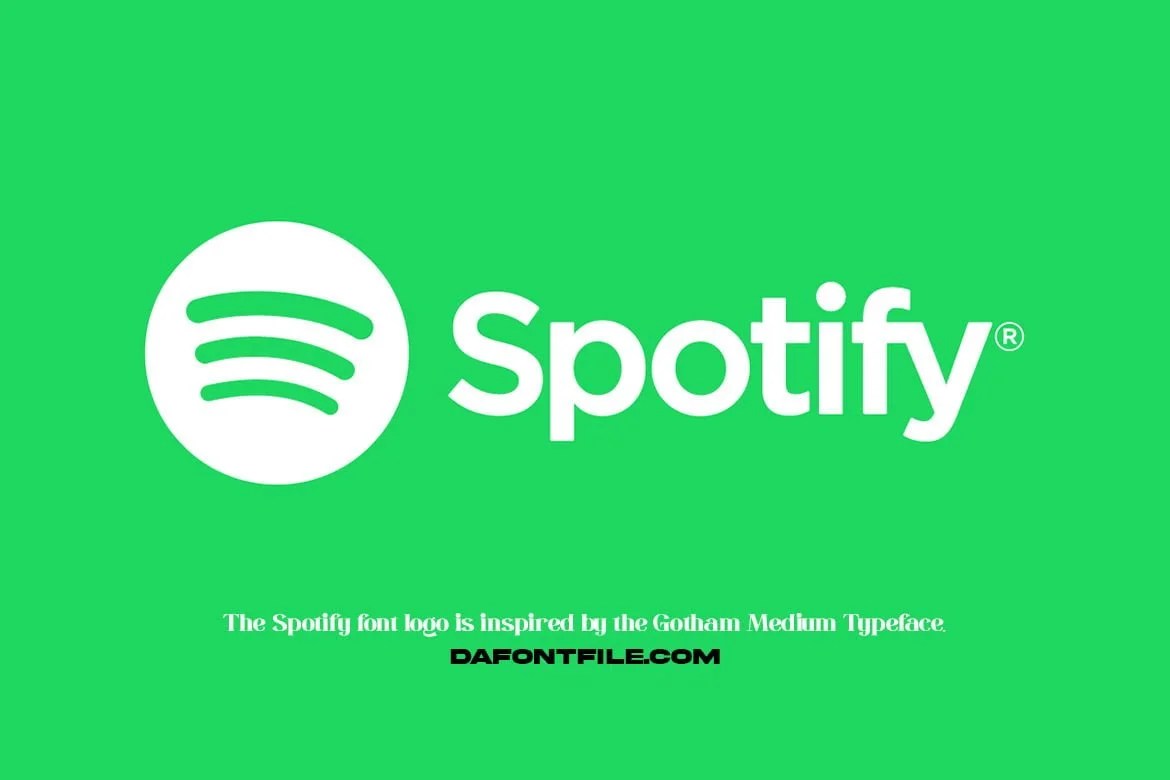
Awesome Font Spotify Ideas
Awesome Font Spotify Ideas. The designer inspired himself from the architectural style that you can see in new york city. Circular comes in five weights, with italic variants.
Circular Font (Free Download) Nancy Young October 29, 2021.
Web Spotify Font Logo Is Inspired By The Gotham Medium Typeface.
Its main focus is audio streaming that. This font is used for the first time in the logo design of a musical application. And now, gotham font has become extremely popular in everyday life, as well as.